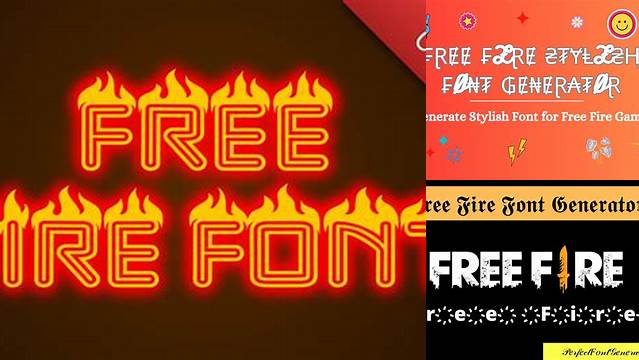
21 Free Fire Font Styles: Copy & Paste For A Stylish Game
Hey Free Fire fanatics! Are you guys ready to level up your in-game persona? Want to stand out from the crowd and make your profile pop? Then you're in the right place! This guide is all about spicing up your Free Fire experience with cool font styles that you can easily copy and paste. Forget boring default fonts, because we're diving headfirst into a world of stylish text options. Get ready to transform your name, your chat messages, and even your guild descriptions into something truly eye-catching. I'm talking about turning your in-game identity into a work of art. So buckle up, because we're about to explore 21 awesome font styles that will make you the envy of every Free Fire player. Let's get started, shall we?
1. Why Use Different Font Styles in Free Fire?
Alright, let's kick things off with the big question: why bother with different font styles in Free Fire anyway? Why not just stick with the plain old text? Well, guys, the answer is simple: personality! Think of your in-game name, your guild descriptions, and your chat messages as an extension of yourself. They're how you express who you are within the Free Fire universe. Using unique font styles allows you to inject a little flair, a little creativity, and a whole lot of individuality into your profile. It's like choosing a cool outfit for your character – it makes you stand out. Imagine seeing the same username a hundred times. It's boring, right? Now imagine seeing that same name written in a super stylish, attention-grabbing font. Instantly, it becomes more memorable, more interesting. It's the difference between being just another player and becoming a legend. Different font styles help you create a distinct identity, making you more recognizable and, let's be honest, a little bit cooler. You can use these styles to show off your personality, whether you're a serious competitor, a fun-loving teammate, or just someone who loves to express themselves. They are great for creating a cool aesthetic. Ultimately, changing your font is about having fun and making your Free Fire experience a little bit more enjoyable and unique. The use of unique fonts also shows a little bit of creativity and helps you feel better as a player. This makes your profile stand out even more. So, are you ready to make some changes?
3. Top 21 Copy and Paste Font Styles for Free Fire
Here is a list of fonts that you can copy and paste into your Free Fire profile. Each font below is ready to be copied and used! These are not all of the fonts, but some of the most popular and useful.
- 𝓕𝓻𝓮𝓮 𝓕𝓲𝓻𝓮 (Elegant)
- 𝔽𝕣𝕖𝕖 𝔽𝕚𝕣𝕖 (Bold)
- 𝐹𝓇𝑒𝑒 𝐹𝒾𝓇𝑒 (Italic)
- ꜰʀᴇᴇ ꜰɪʀᴇ (Small caps)
- Ⓕⓡⓔⓔ Ⓕⓘⓡⓔ (Circled)
- F̶r̶e̶e̶ ̶F̶i̶r̶e̶ (Strikethrough)
- 𝕱𝖗𝖊𝖊 𝕱𝖎𝖗𝖊 (Fraktur)
- Free Fire (Simple)
- ꜰʀᴇᴇ ꜰɪʀᴇ (Cursive)
- Free Fire (Wide)
- Free Fire (Double Struck)
- F҉r҉e҉e҉ ҉F҉i҉r҉e҉ (Scribble)
- F͜͡r͜͡e͜͡e͜͡ ͜͡F͜͡i͜͡r͜͡e͜͡ (Double Underlined)
- [̲̅F̲̅r̲̅e̲̅e̲̅ ̲̅F̲̅i̲̅r̲̅e̲̅] (Underlined)
- Free Fire (Bubble)
- F͓̽r͓̽e͓̽e͓̽ ͓̽F͓̽i͓̽r͓̽e͓̽ (Boxed)
- F͜͡r͜͡e͜͡e͜͡ ͜͡F͜͡i͜͡r͜͡e͜͡ (Wave)
- F⃣r⃣e⃣e⃣ ⃣F⃣i⃣r⃣e⃣ (Numbers)
- F̷r̷e̷e̷ ̷F̷i̷r̷e̷ (Dotted)
- Free Fire (Monospace)
- 𝐅𝐫𝐞𝐞 𝐅𝐢𝐫𝐞 (Heavy)
4. Tips for Choosing the Right Font
Choosing the right font style is more than just picking the coolest-looking one. It's about finding a font that reflects your personality and enhances your in-game presence. First, consider readability. While some fonts are incredibly stylish, they can be difficult to read, especially in the heat of battle. You want a font that's easy to decipher at a glance, so your teammates and opponents can quickly understand your name or messages. Next, think about the overall aesthetic you're going for. Do you want a font that’s bold and aggressive? Or something more elegant and refined? The font should match your desired image. Do you want to look like a pro, a casual player, or a funny guy? Different fonts have different vibes, so choose one that aligns with your style. Don't be afraid to experiment. Try out various fonts and see how they look in different contexts – in your name, in chat, and in your guild description. Pay attention to how the font appears on different devices and in different game environments. Some fonts may look great on your device but not as good on someone else's. Consider the context. A playful font might be perfect for casual chat, while a more serious font might be better suited for a guild description or a competitive team name. The goal is to find the perfect blend of readability, style, and personality to create a font choice that helps you stand out. So, get creative, experiment, and find the perfect font style that makes you shine. Remember, the right font can make all the difference!